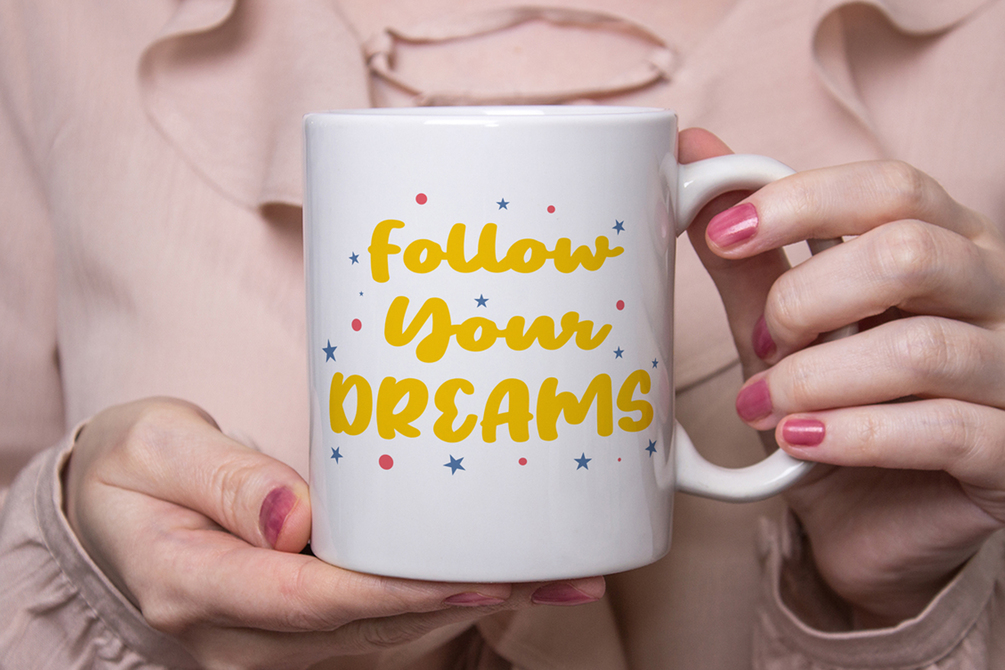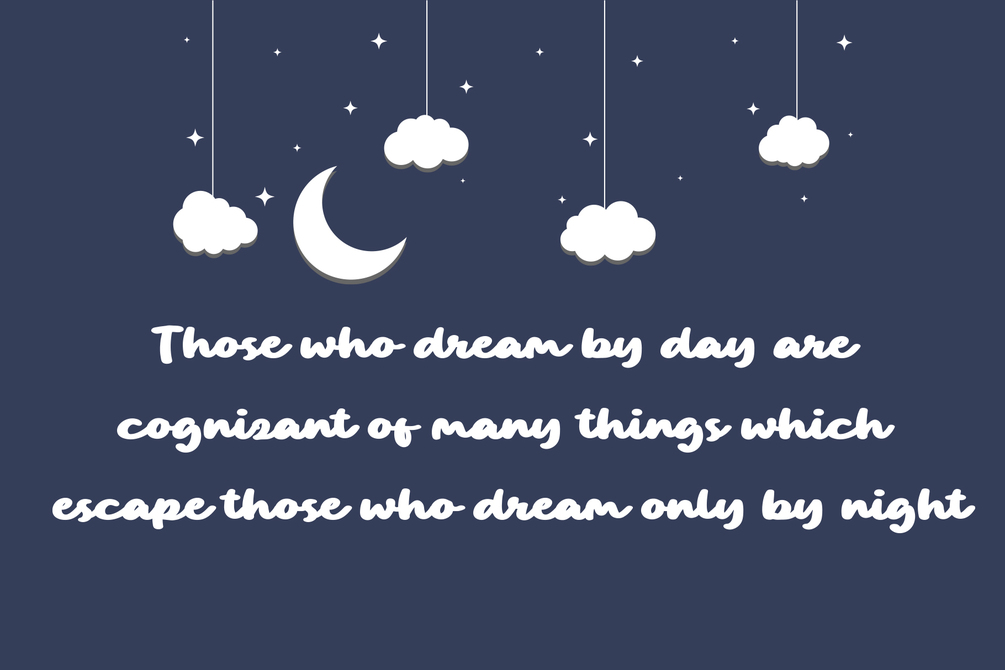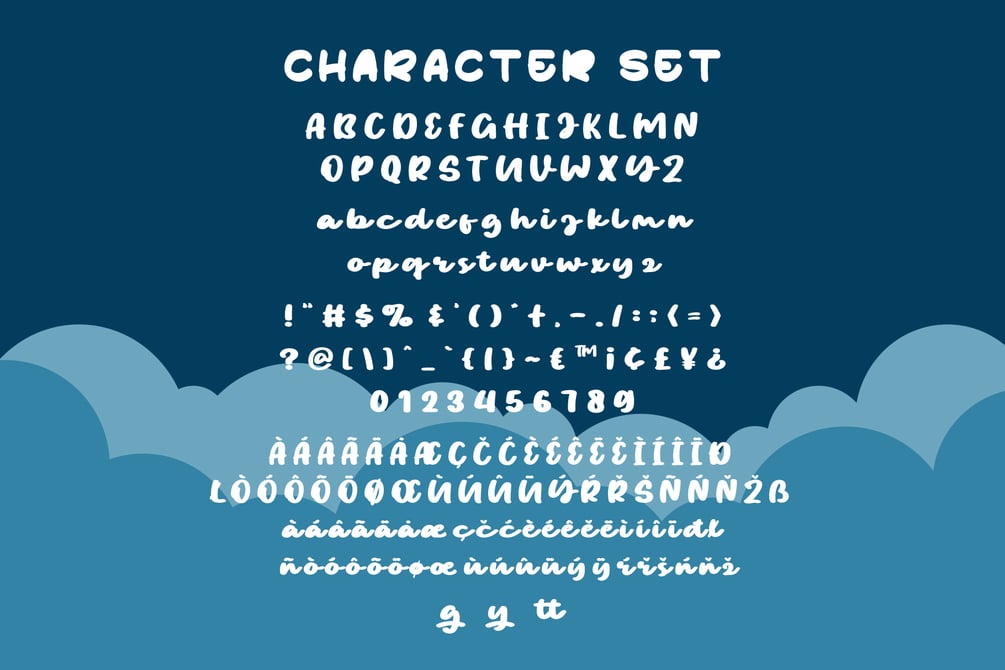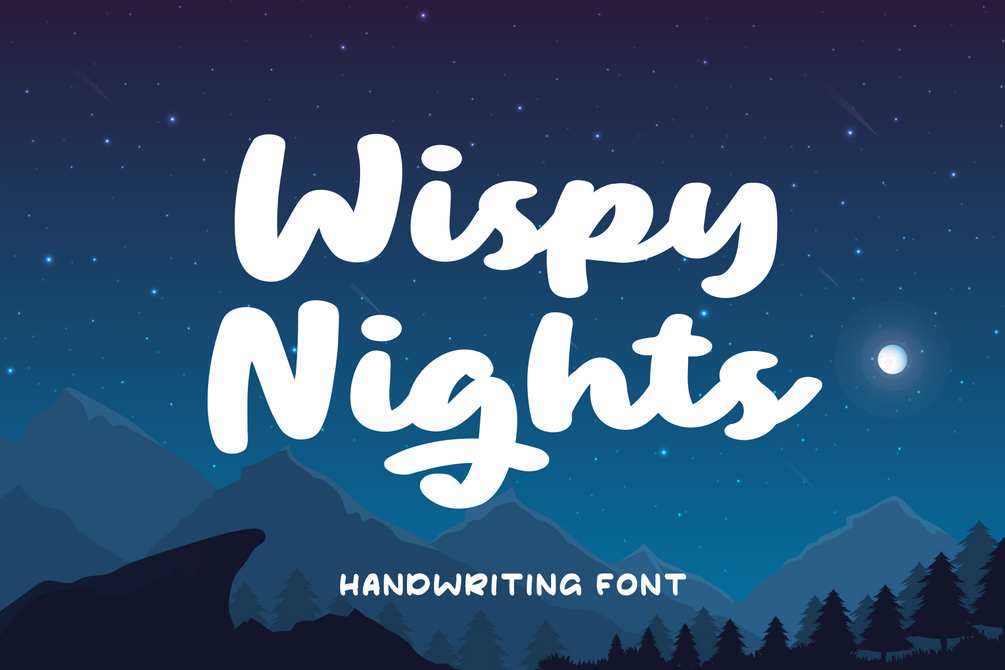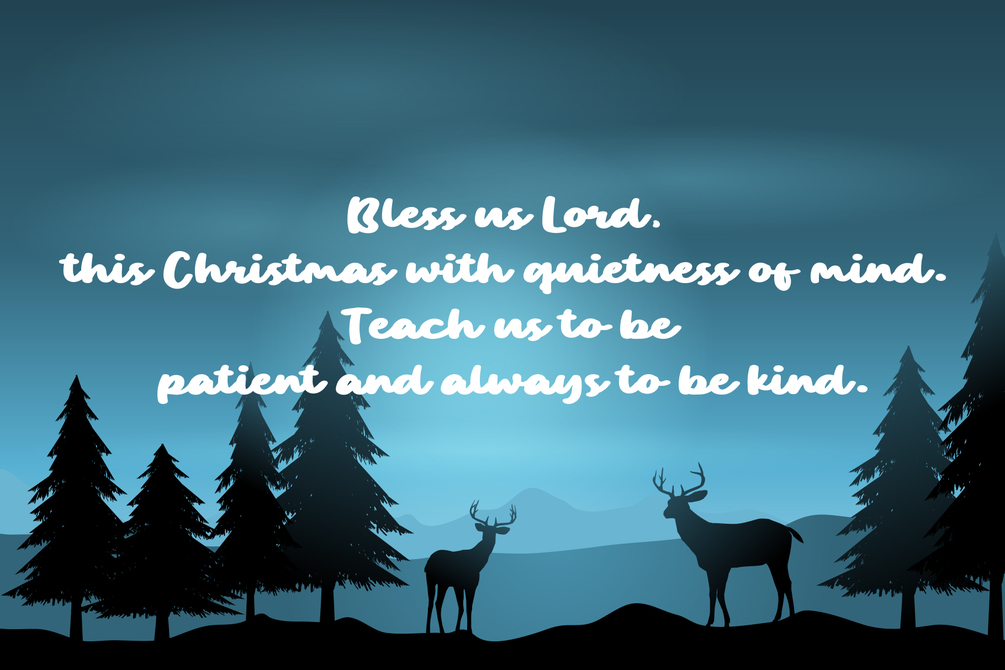
Wispy Nights - Hand Writing Fonts
Hello there, here's the new Scripted font Wispy Nights.
Wispy Nights is display font with extra Extrude Style.
Easy to read, easy to access style.
• Uppercase
• Lowercase
• Numerals
• Symbols
• Standart Multilingual